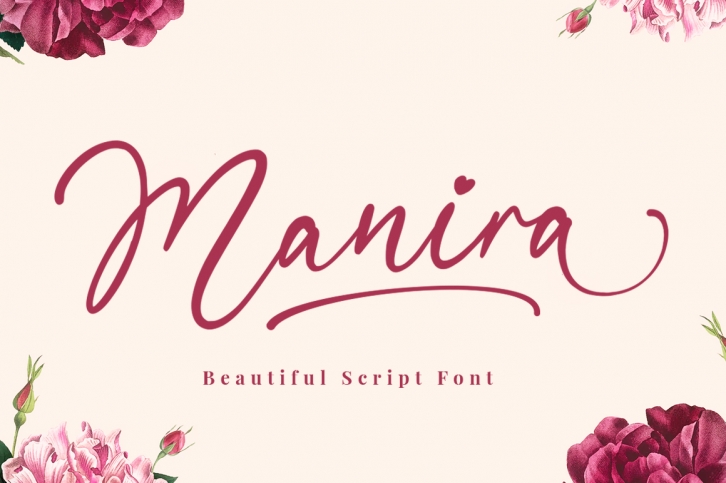
Manira Script is a gorgeous font that was realeased on February 26, 2020. The font can be used in many style contexts and design environments. Perfect for invitations, magazines, websites, logos, and more! It was designed by SpoonSummer and the file size is 20.80 MB. Thanks for checking out this font!